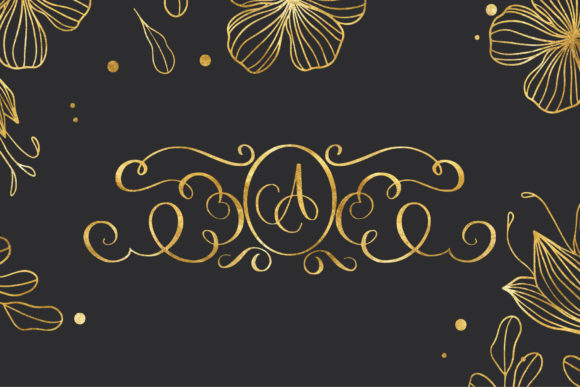
Indulge in a writing experience like no other with Decorative Monogram, the captivating font that will elevate your words into works of art. This exquisite font, meticulously designed by goodigital, is a symphony of intricate details and romantic flair, perfect for crafting unforgettable love letters, wedding invitations, and design masterpieces.
With Decorative Monogram, your words will dance across the page with an elegance and charm that will leave a lasting impression. Its delicate curves and flourishes will add a touch of whimsy and romance to any project, making it the ideal choice for those seeking to create truly memorable and emotionally resonant pieces.
Whether you're a seasoned designer or simply seeking to add a touch of personality to your writing, Decorative Monogram is the perfect font to spark your creativity and ignite your imagination. Let its enchanting beauty inspire you to create stunning designs that will captivate and delight all who behold them. With Decorative Monogram, the possibilities are endless, and the results are always unforgettable.